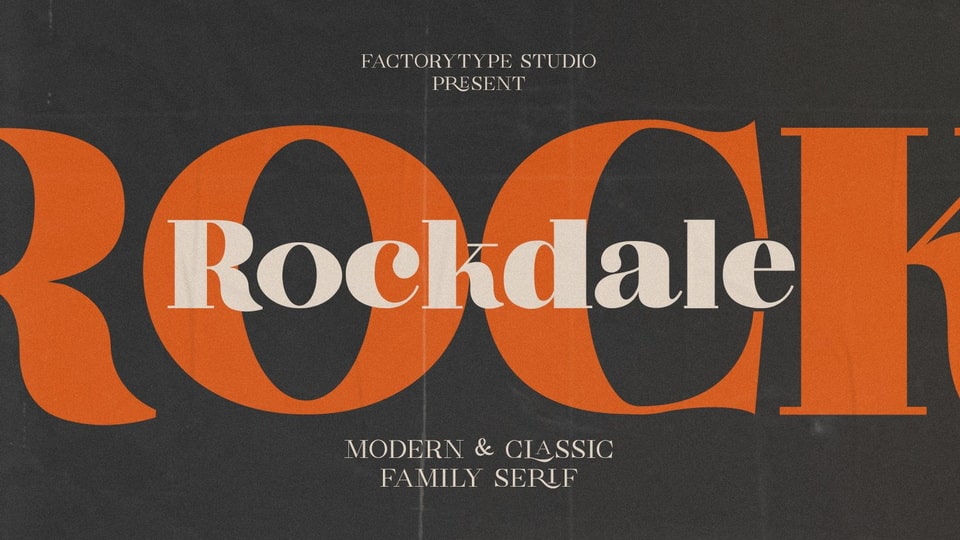
Rockdale Serif Font › Fontesk
Download Rockdale font, a bold and luxurious serif font designed for brand or logo design. It teases your eyes with its curves while still maintaining a modern and classy demeanor.